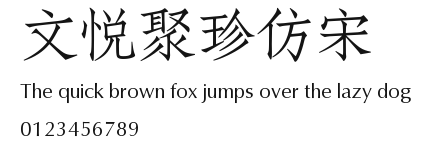
文悦聚珍仿宋 Preview
About 文悦聚珍仿宋.ttf
文悦聚珍仿宋.ttf is a modern, elegant sans-serif font designed for ultimate readability and visual harmony. Perfect for branding, headlines, web design, and print materials.